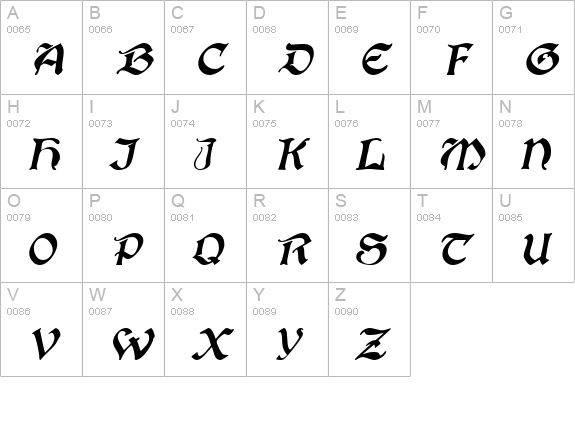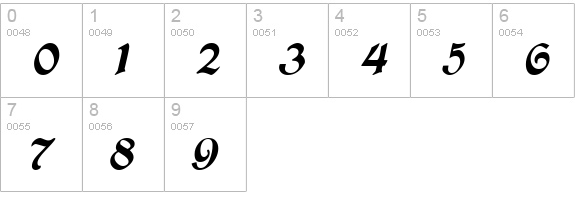
ConcordiaSSK Italic Font Details
ConcordiaSSK Italic is a distinctive, italic variant in the ConcordiaSSK typeface family \xE2\x80\x94 well suited to design and typography projects.
ConcordiaSSK Italic font is a stylish and elegant typeface that exudes sophistication and charm. Its slanted design adds a touch of modernity to any project, making it perfect for a wide range of applications, from branding to editorial design. The flowing curves and unique letterforms of ConcordiaSSK Italic make it stand out from the crowd, ensuring that your text will capture attention and leave a lasting impression. What's even better is that ConcordiaSSK Italic font is available for free download at FontsMarket.com. This means you can easily access this beautiful typeface and use it in your projects without any additional cost. Don't miss out on the opportunity to enhance your designs with the elegance and versatility of ConcordiaSSK Italic font – download it today and elevate your typography game!